Purista EA
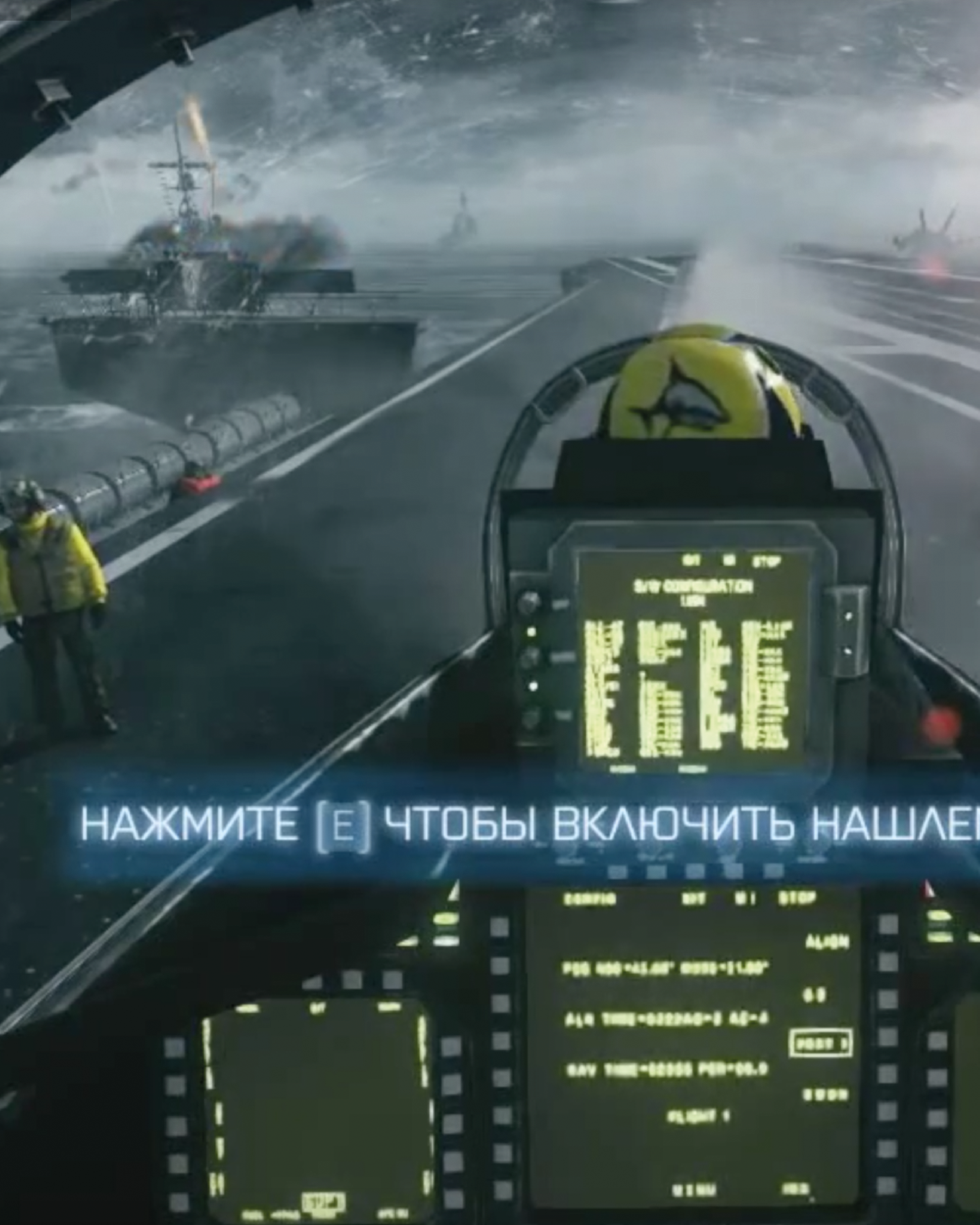
For the video game Battlefield 3, a localization of the Purista typeface was developed, extending the original Latin character set with a complete Cyrillic script. The adaptation preserved the typeface’s technical character and ensured visual consistency across localized versions of the game.